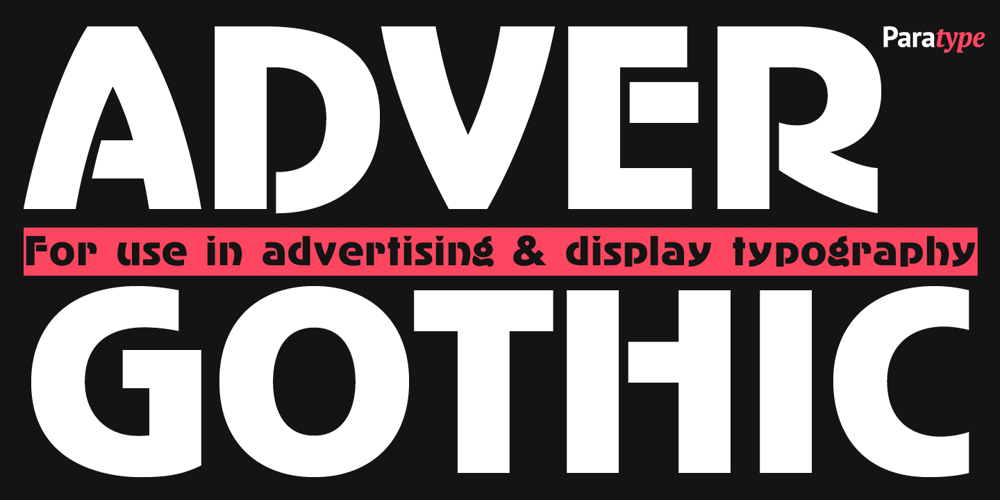
AdverGothic
AdverGothic font
AdverGothic Font Family was designed by Alexander Tarbeev, Vladimir Yefimov, Robert Wiebking and published by ParaType. AdverGothic contains 3 styles and family package options. Designed at ParaType in 1989 by Vladimir Yefimov based on Advertisers Gothic, 1917, by Robert Wiebking, inspired by Art Nouveau lettering. For use in advertising and display typography.